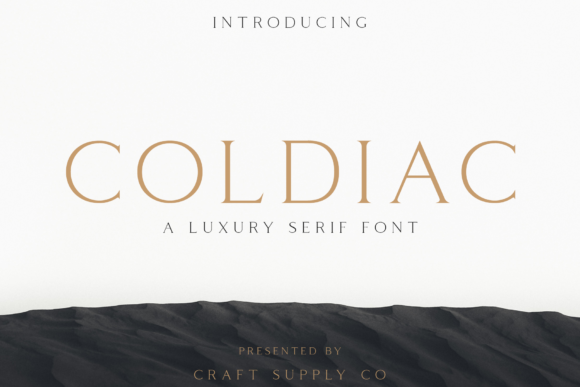
Coldiac Font: A Modern Serif Font Family for Versatile Design Needs
The world of typography is vast and diverse, with numerous font families designed to cater to various design requirements. Among these, the Coldiac font stands out as a modern serif font family that draws inspiration from the style of transitional serifs. Its unique blend of traditional and contemporary elements makes it an excellent choice for a wide range of design projects, from logos and greeting cards to posters, branding, and digital content.
Design Characteristics of Coldiac Font
The Coldiac font is characterized by several distinctive features that set it apart from other serif font families. Some of its key design elements include:
- Relatively low contrast of strokes: Unlike some serif fonts that exhibit high contrast between thick and thin strokes, Coldiac features a more subtle transition, lending it a modern and understated appearance.
- Slightly squarish shapes of round characters: The round characters in Coldiac, such as the letters “a,” “c,” and “e,” have a slightly squarish shape, which adds to the font’s unique personality.
- Emphasized businesslike nature: Coldiac’s design is rooted in a businesslike approach, making it suitable for professional and corporate design projects.
Versatility of Coldiac Font
One of the standout features of Coldiac is its versatility. Despite its intricate display details, the font remains legible and aesthetically pleasing even at small point sizes. This makes it an excellent choice for a variety of design applications, including:
- Logos: Coldiac’s unique blend of modern and traditional elements makes it an excellent choice for logos that require a distinctive and memorable appearance.
- Greeting cards: The font’s elegant and sophisticated design makes it suitable for greeting cards, invitations, and other formal correspondence.
- Posters: Coldiac’s bold and eye-catching appearance makes it an excellent choice for posters, flyers, and other large-format designs.
- Branding: The font’s businesslike nature and modern aesthetic make it suitable for branding and corporate identity projects.
- Stationery: Coldiac’s elegant design makes it an excellent choice for stationery, including letterheads, envelopes, and business cards.
Stylistic Set and Typographic Features
Coldiac features an original stylistic set that adds a unique twist to some of the lowercase characters. When activated, this feature introduces pointed-pen serif elements to select characters, giving the font a distinctive and hand-crafted appearance.
The font has been crafted from scratch with a structural logic that combines pure geometry and optical balance. This approach ensures that Coldiac remains legible and aesthetically pleasing, even in complex typographic arrangements.
Combining Styles with Coldiac
Coldiac’s versatility is further enhanced by its ability to combine with a variety of styles. The font can be used in conjunction with other typography styles to create visually appealing and harmonious design compositions.
Some examples of design projects that can benefit from Coldiac’s versatility include:
- Blog headers: Coldiac’s elegant and sophisticated design makes it suitable for blog headers, adding a touch of professionalism and style to online content.
- Art quotes: The font’s unique blend of modern and traditional elements makes it an excellent choice for art quotes, adding a touch of elegance and sophistication to typographic arrangements.
- Typography: Coldiac’s design characteristics make it an excellent choice for typography-focused design projects, such as posters, flyers, and brochures.
In conclusion, Coldiac is a modern serif font family that offers a unique blend of traditional and contemporary elements. Its versatility, elegant design, and typographic features make it an excellent choice for a wide range of design projects, from logos and branding to posters, stationery, and digital content.
Whether you’re a designer looking for a font that can add a touch of sophistication to your design projects or a business seeking a professional and modern typography solution, Coldiac is an excellent choice.